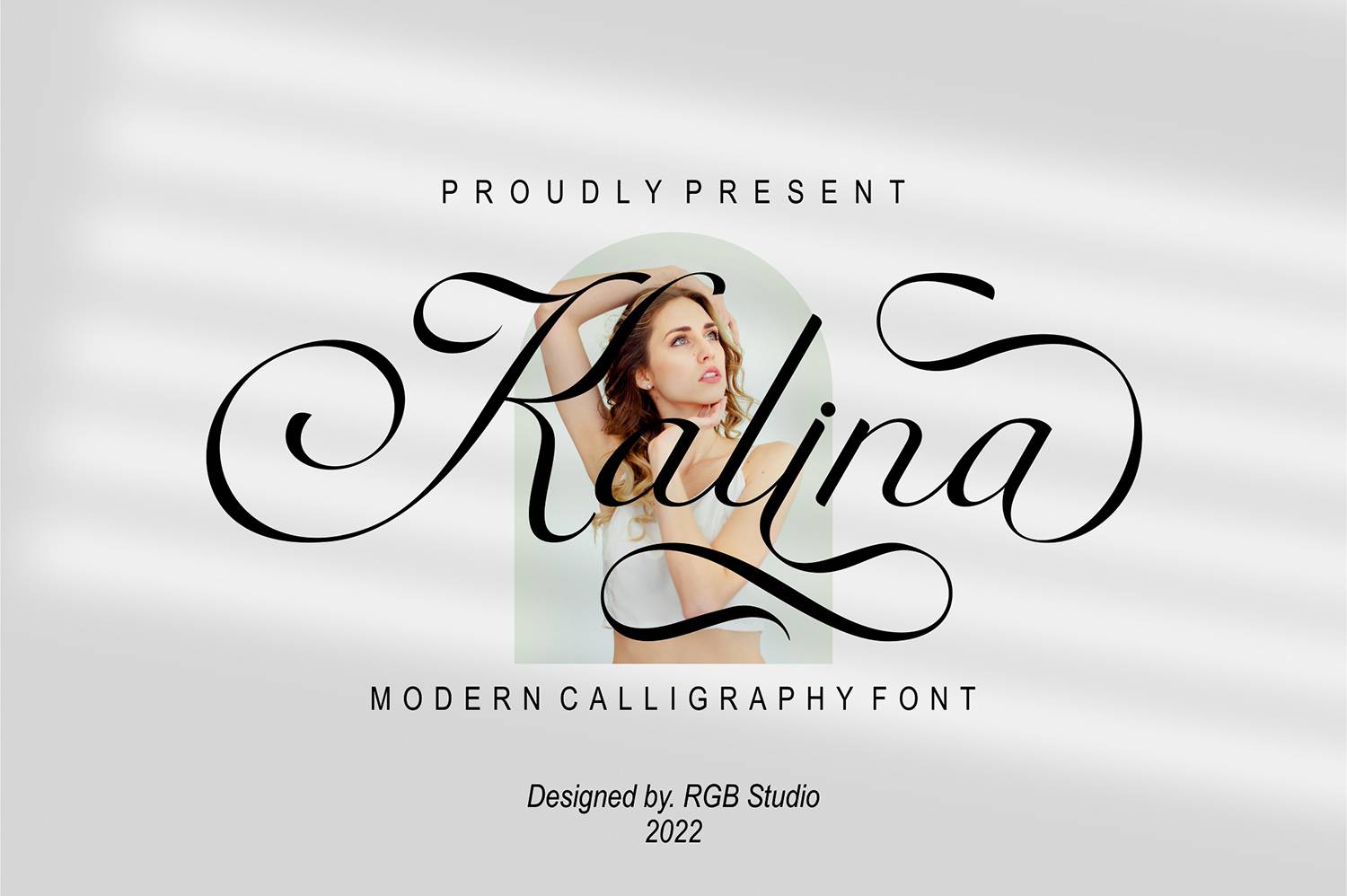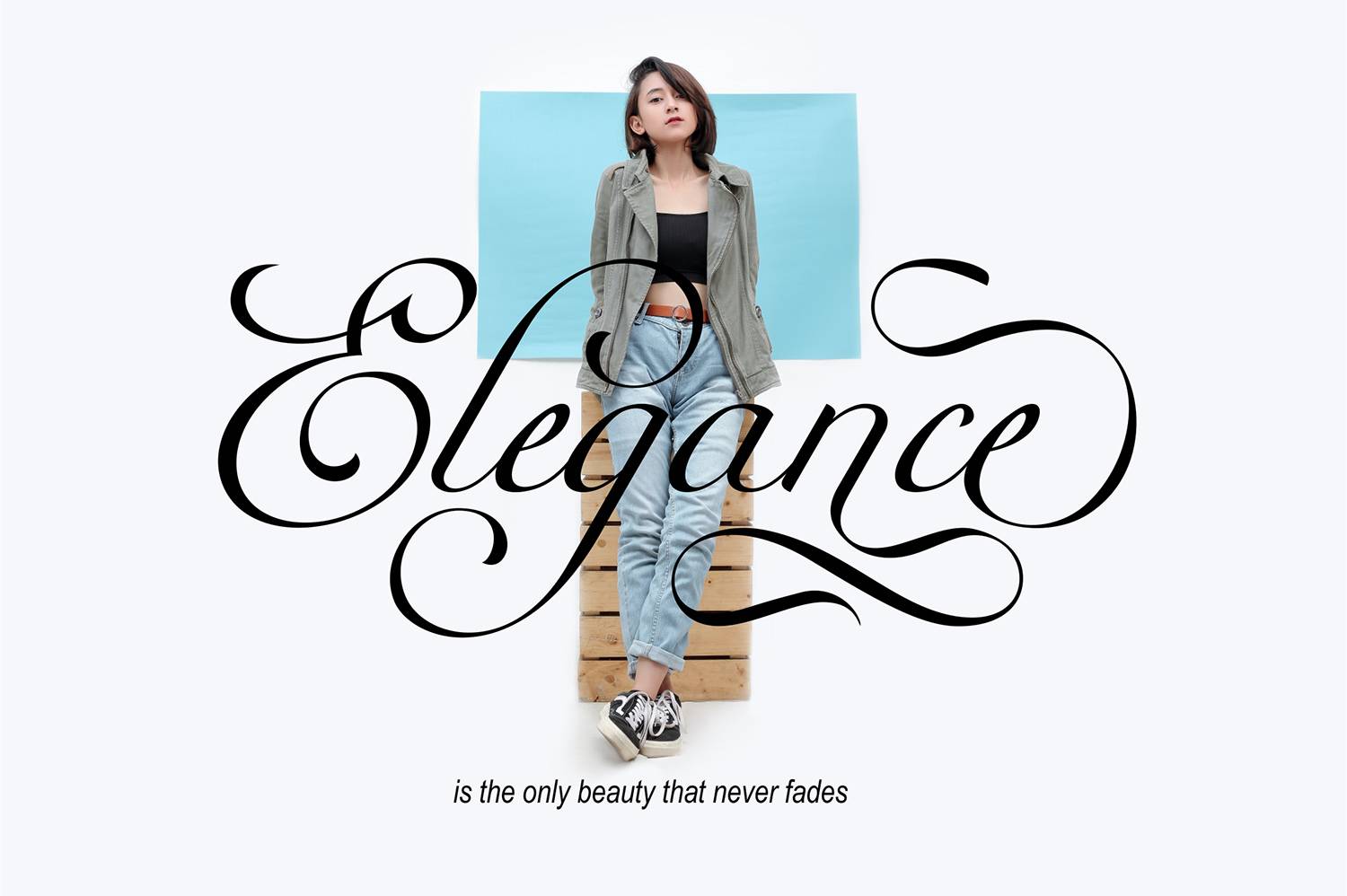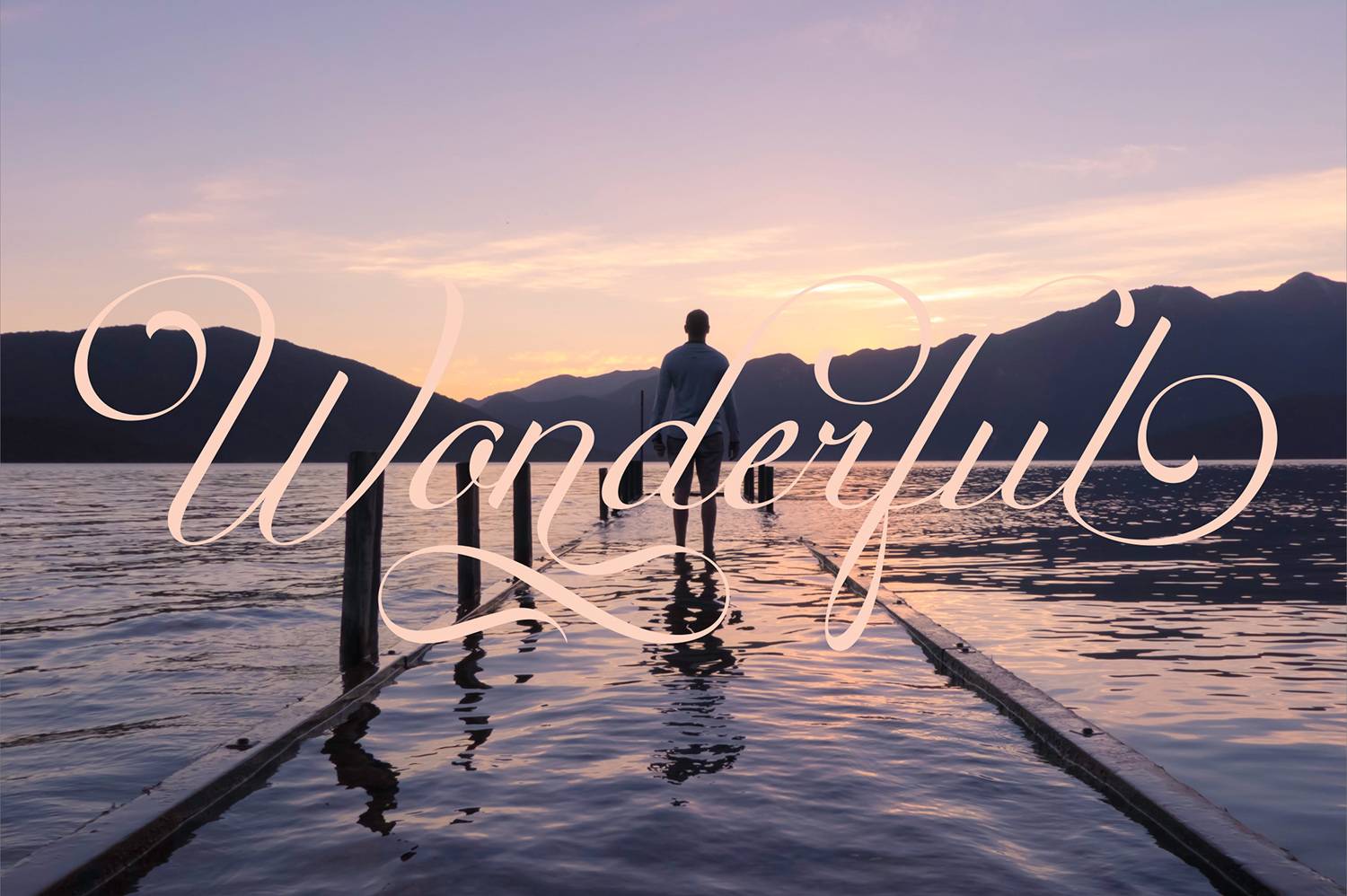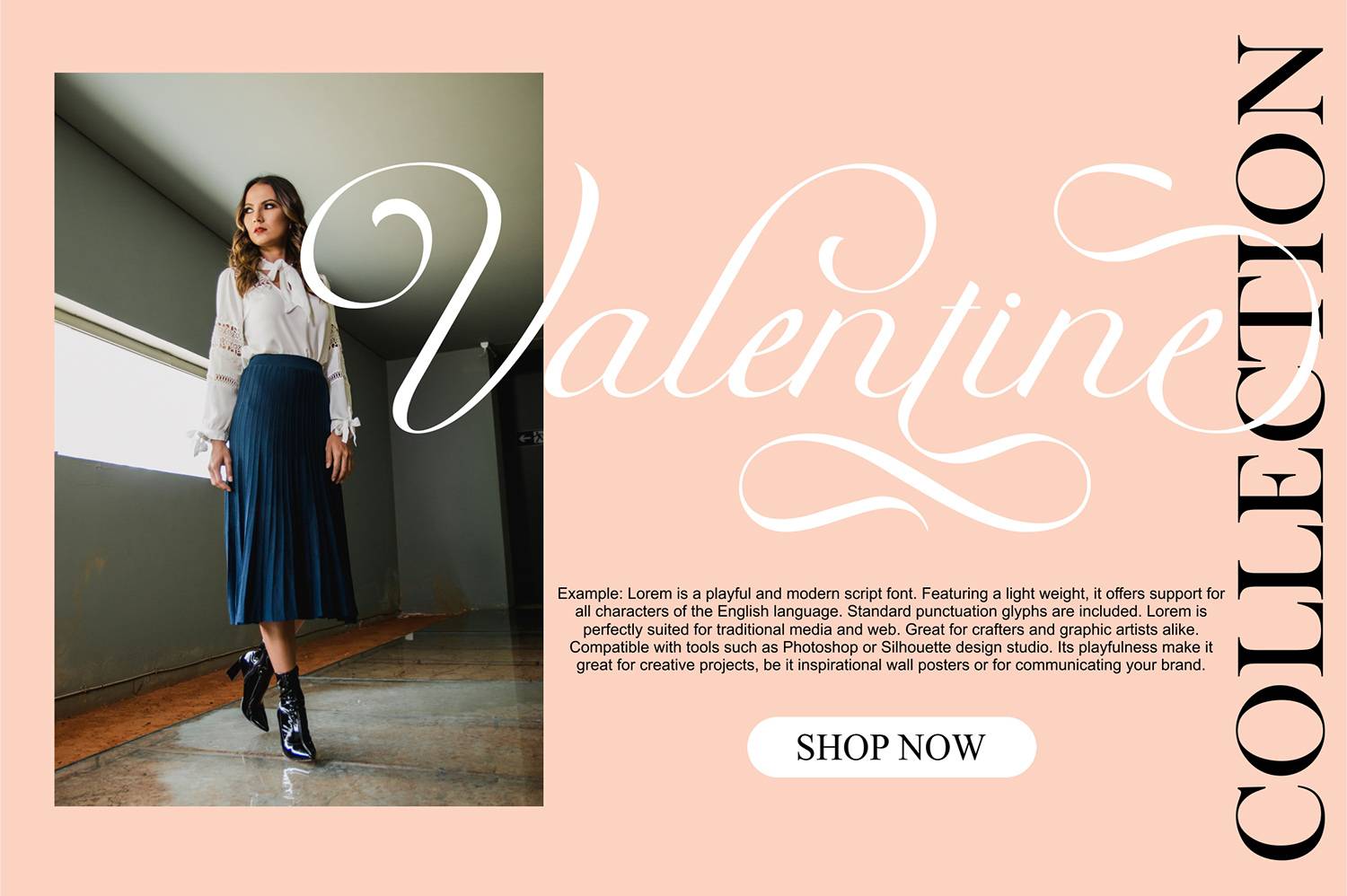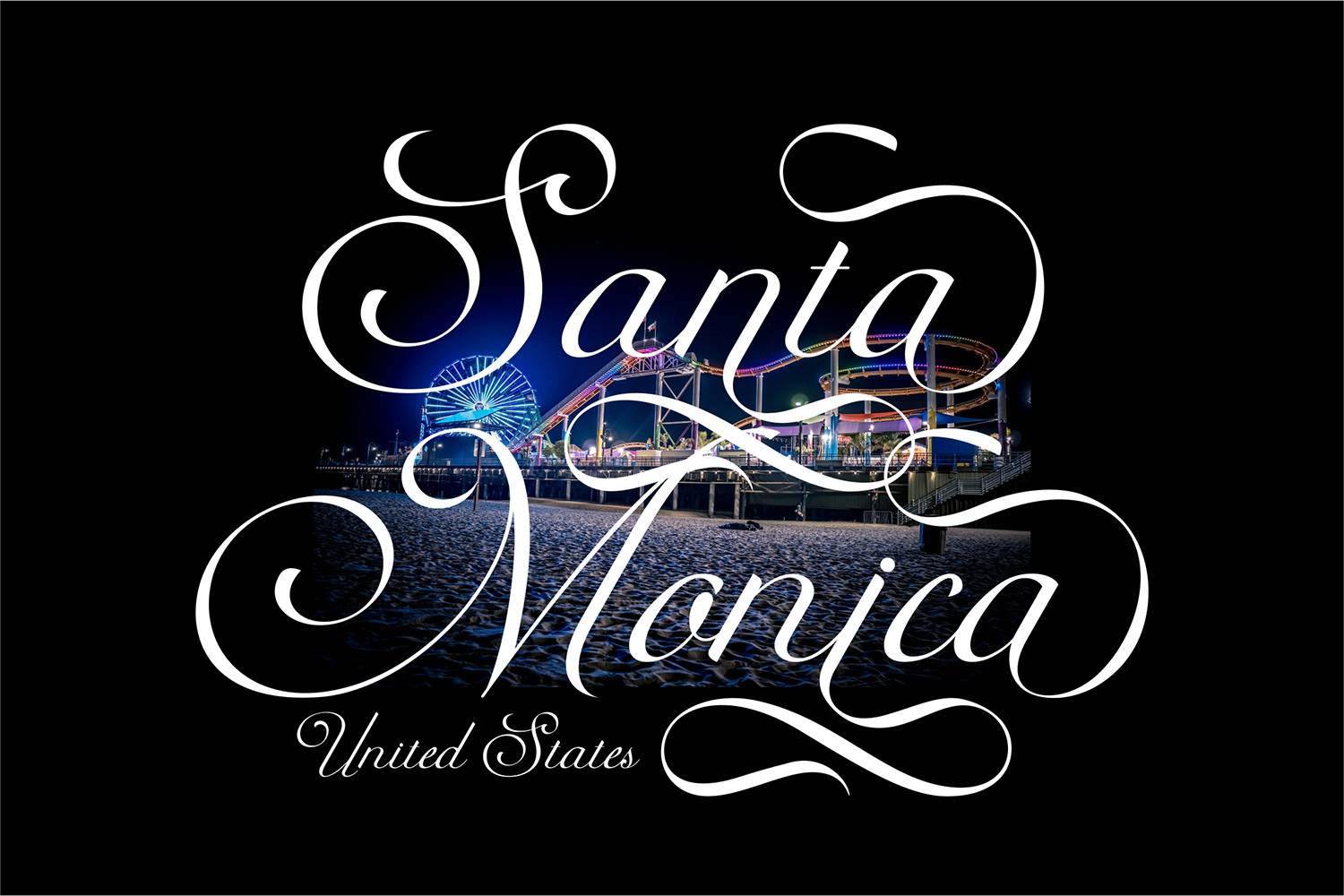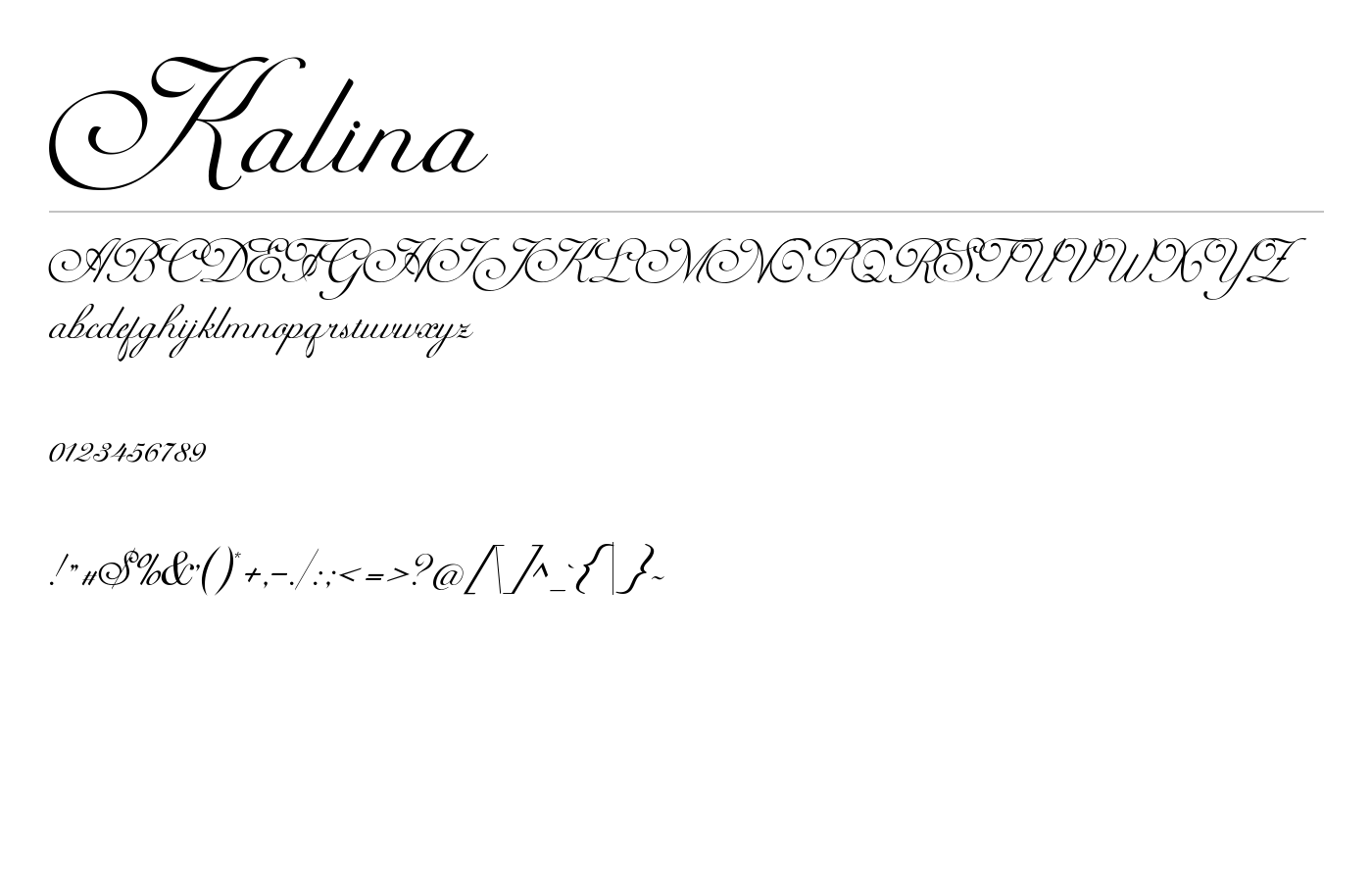
Kalina is an elegant script font characterized by its delicate, flowing strokes and high contrast between thin and thick lines, giving it a refined and graceful appearance. Its ornate, calligraphic style with intricate uppercase swashes and smooth lowercase forms makes it perfect for luxury branding, invitations, and elegant editorial designs that require a sophisticated and timeless touch.
Kalina Font
About Kalina Font
| Font family | Kalina Font |
| Release date | 2022-07-16 |
| Designer | MOH. MA'IN |